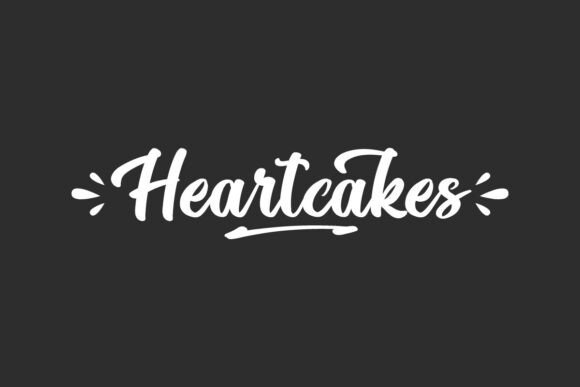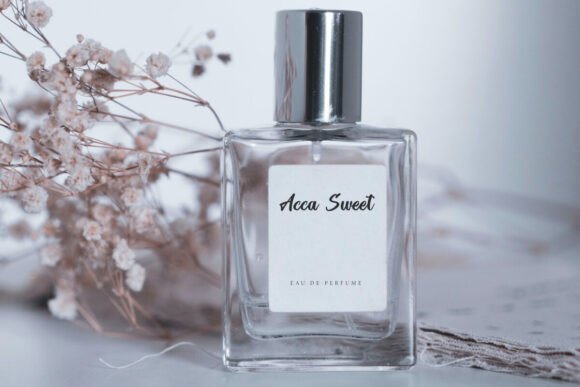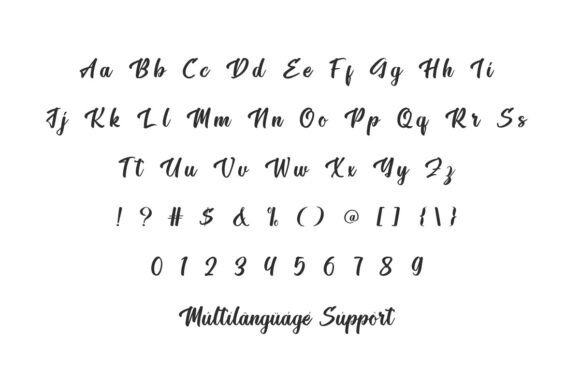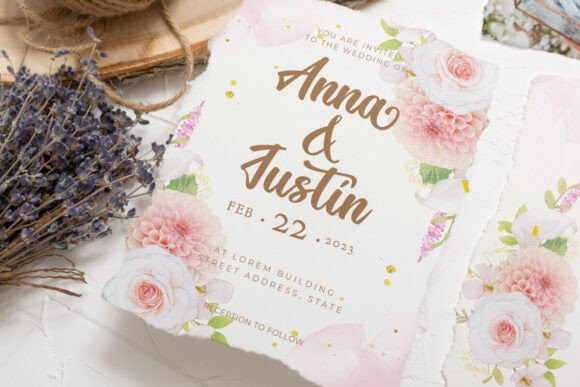
Heartcakes Font: Lovely Calligraphy Script for Wedding & Branding Design
About the Heartcakes Font
Get ready to be inspired by Heartcakes Font, a fresh and dynamic typeface for modern creators. Heartcakes Font is an awesome, beautiful calligraphy script font with a touch of sweetness, full of love and romance vibes. This font has a romantic handwriting style with lovely flowing lines. It will be good for many designs, such as brochure, cover, custom design, gift box, invitation, label, poster, product packaging, quote, screen printing, stationery, website, and more!
Heartcakes is best suited for headlines, short text blocks on invitations or packaging, and projects requiring a touch of romantic elegance. Its flowing nature makes it less ideal for body text or UI elements where readability is paramount. Long paragraphs set in Heartcakes would be difficult to read.
The font’s personality is undeniably romantic and playful, yet sophisticated. It would be a perfect fit for branding related to weddings, high-end confectionery, or luxury beauty products.
Consider pairing Heartcakes with a clean sans-serif like Lato for contrast and improved readability in supporting text, or a classic serif like Garamond for a more traditional, luxurious feel. A geometric sans-serif would also provide a modern counterpoint.
Heartcakes Font Usage Examples
Heartcakes Font Example